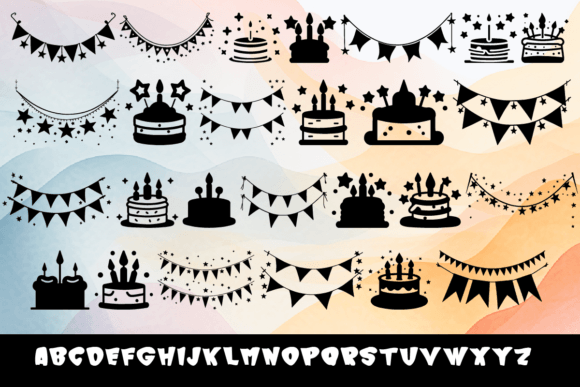
Birthday Party Font
Birthday Party Dingbats is a fun and festive font set featuring 26 unique birthday-themed designs, each corresponding to a letter from A to Z. Ideal for adding a celebratory touch to your projects, this set includes both OTF and TTF file formats, ensuring compatibility with various design software. Make your designs pop with these cheerful birthday party dingbats.